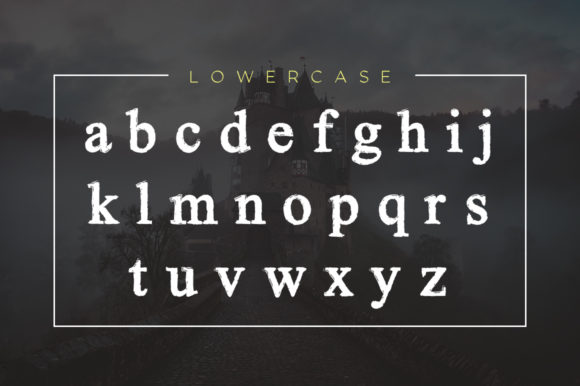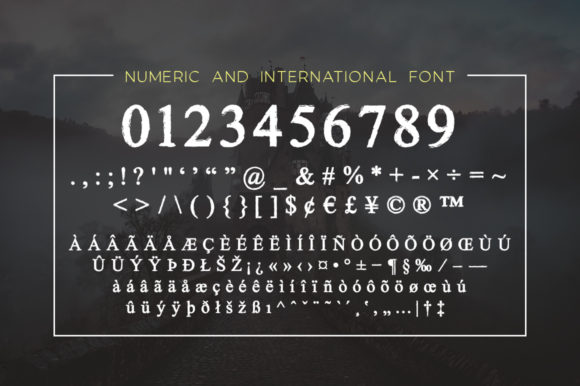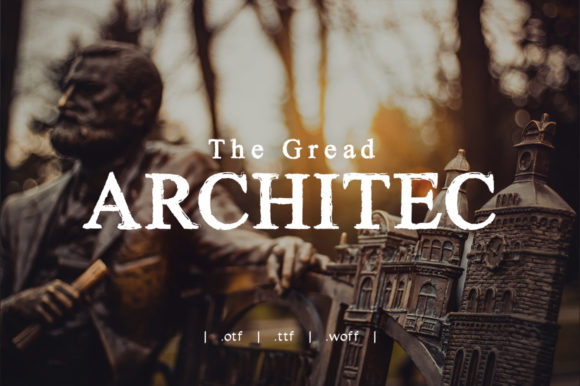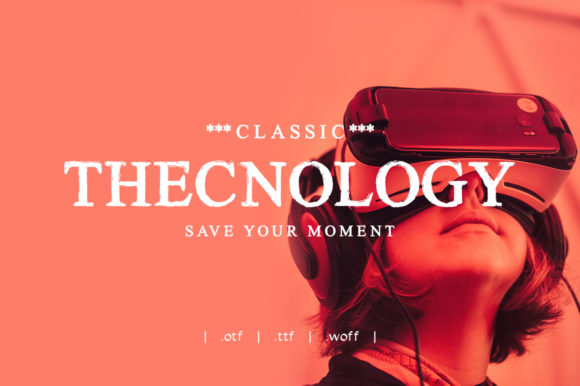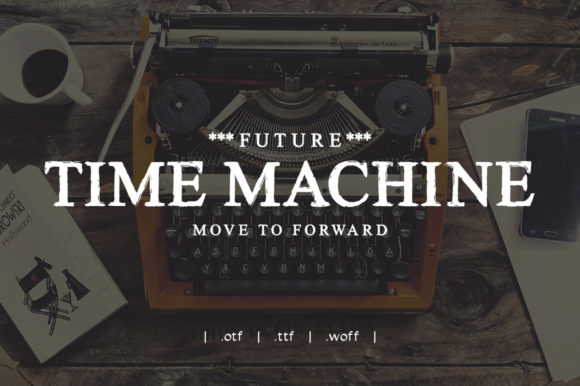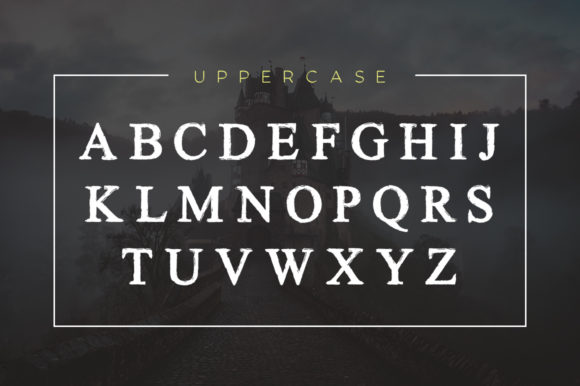
Introduction to Romeoface Font
Romeoface is a classy and versatile display font that will turn any design idea into a true standout.
Key Features of Romeoface Font